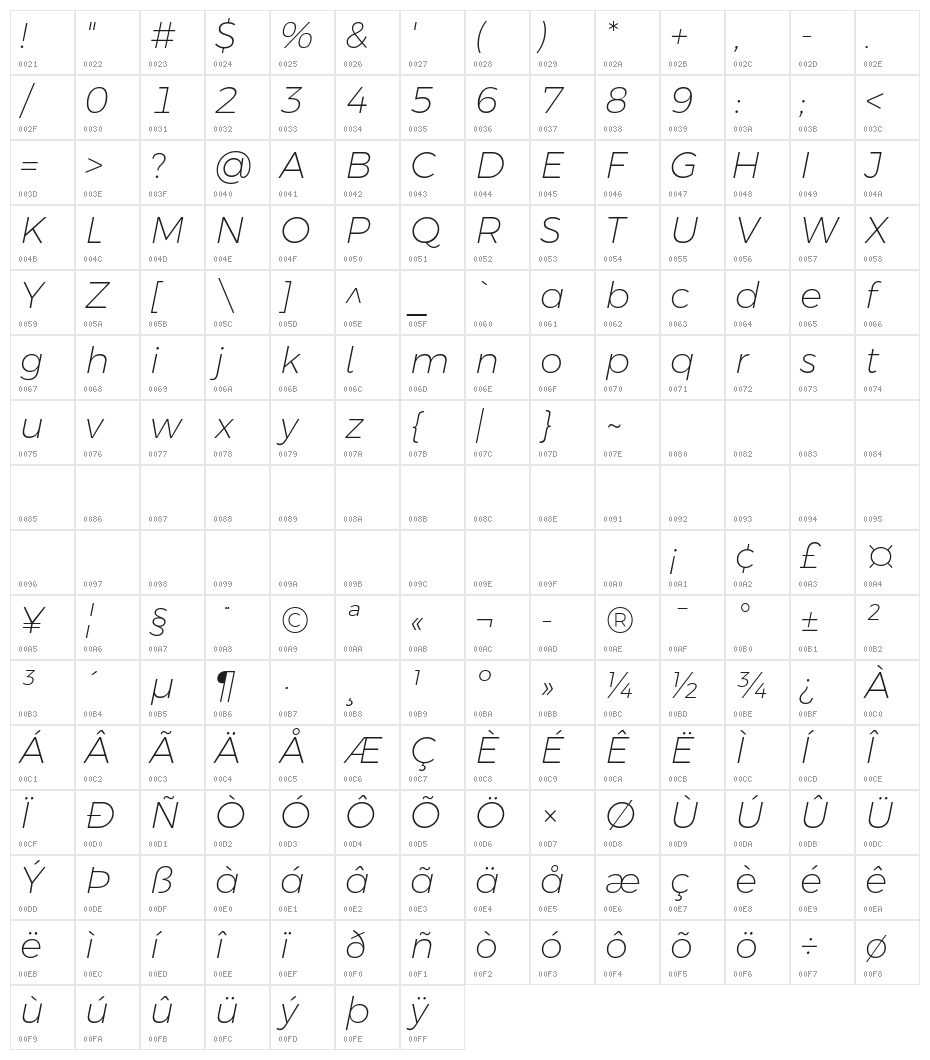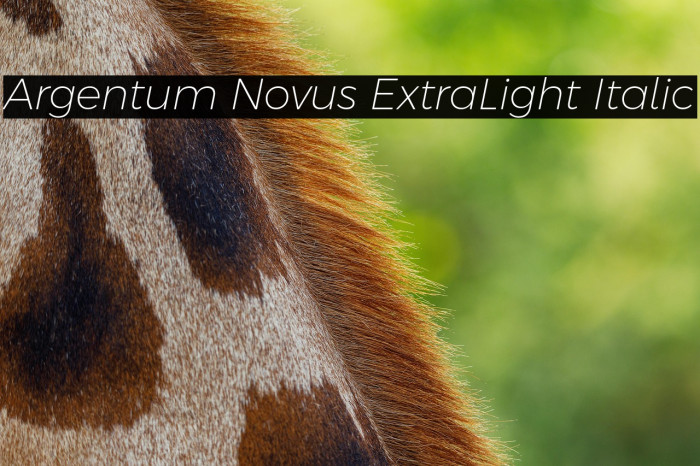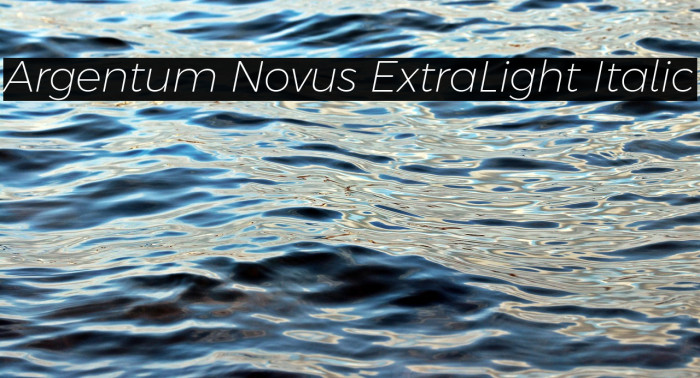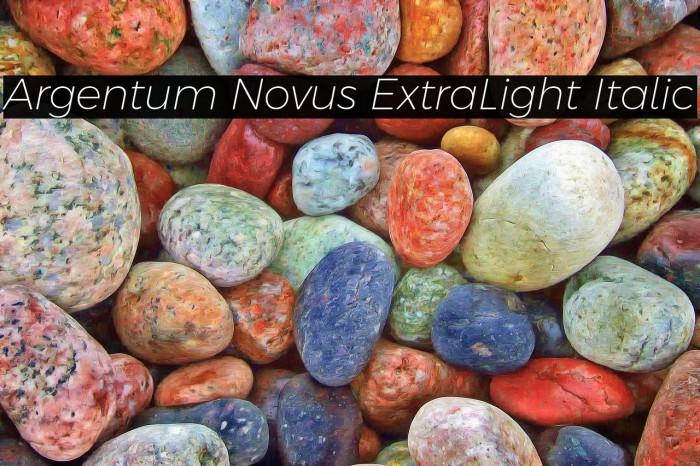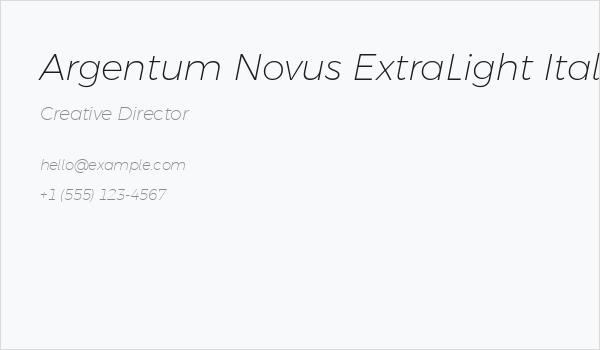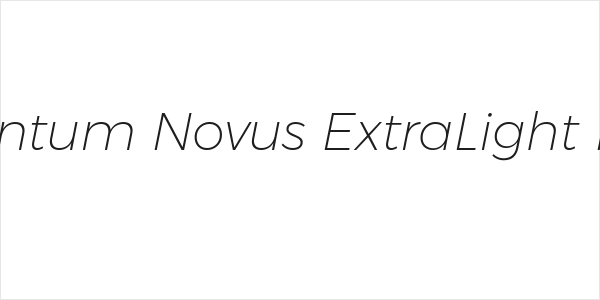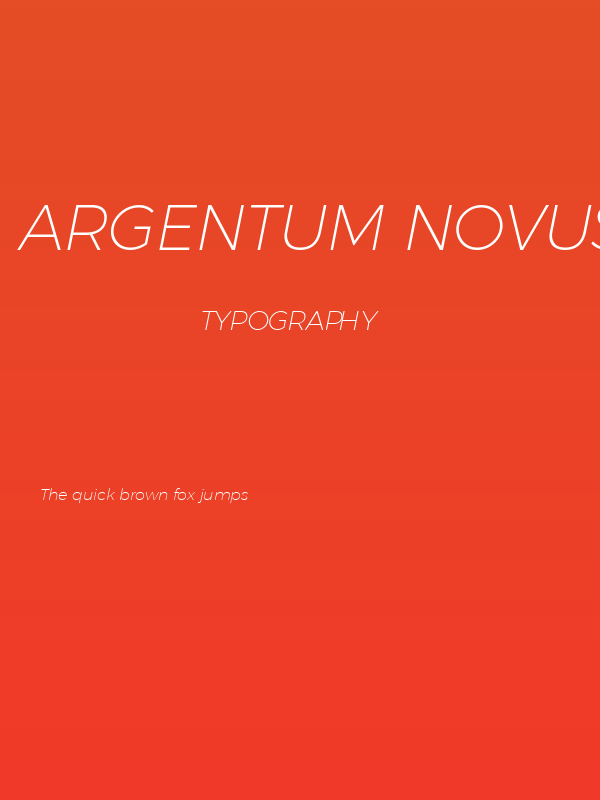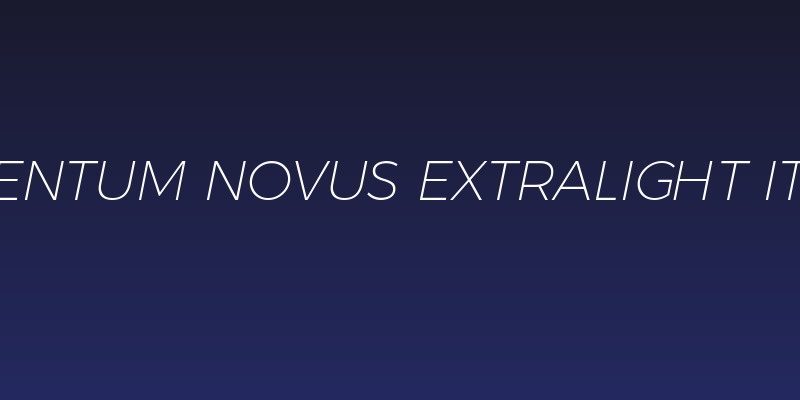
Argentum Novus ExtraLight Italic Font
Argentum Novus ExtraLight Italic Description
This font features a sleek and modern design with an elegant italic style. The characters are crafted with a light weight, giving them a delicate and airy appearance. The strokes are smooth and consistent, contributing to a refined and sophisticated look. The font maintains a clean and uncluttered aesthetic, making it suitable for contemporary design projects. The character spacing is normal, ensuring readability while maintaining a stylish presentation. The overall design is versatile, allowing it to be used in various contexts where a touch of elegance is desired.
| Proposed Projects | Ideal for fashion magazines, modern branding, elegant invitations, and minimalist web design. |